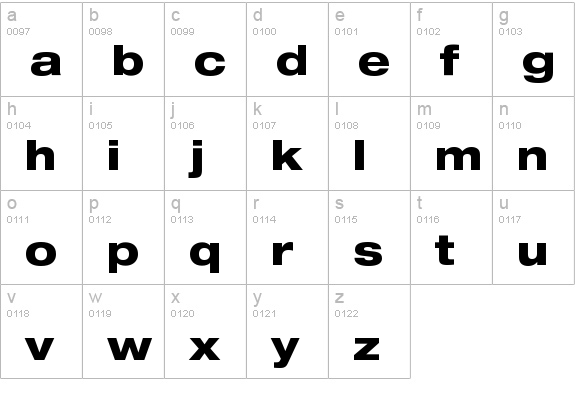
Context Reprise BlackExp SSi Normal Font Details
Context Reprise BlackExp SSi Normal is the standard, neutral variant in the Context typeface family \xE2\x80\x94 well suited to general body text, paragraphs, and standard typographic work.
Context Reprise BlackExp SSi Normal font is a modern and versatile typeface that exudes elegance and sophistication. Its bold and strong design makes it perfect for headlines, titles, and other display purposes. With its clean lines and distinct letterforms, this font commands attention and adds a touch of professionalism to any design project. The best part is that Context Reprise BlackExp SSi Normal font is available for free download at FontsMarket.com. This means you can easily access and use this beautiful font in your projects without any cost. Whether you are working on a website, logo, poster, or any other design, this font will surely make a statement and elevate your work to the next level. Don't miss out on this amazing opportunity to enhance your designs with the elegant and impactful Context Reprise BlackExp SSi Normal font. Download it for free today and see the difference it can make in your projects!